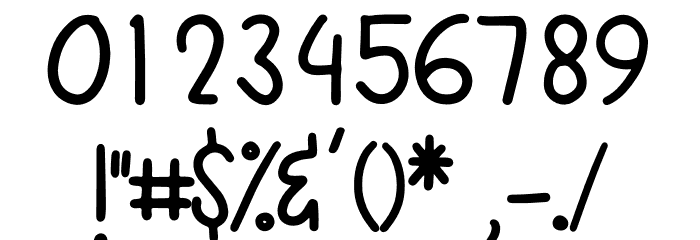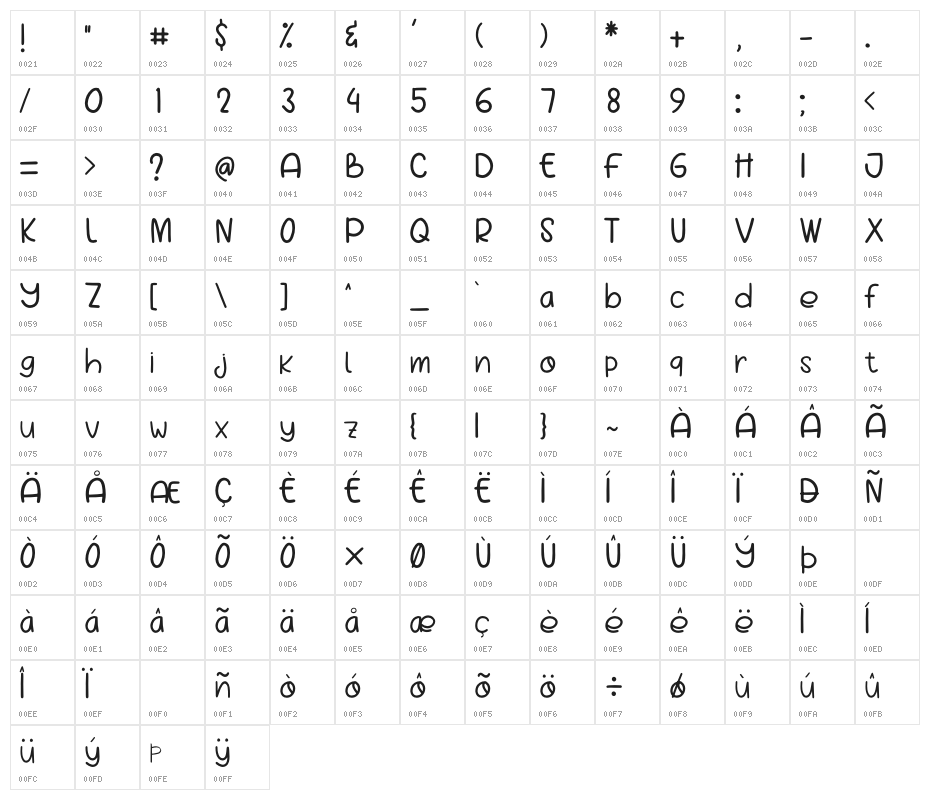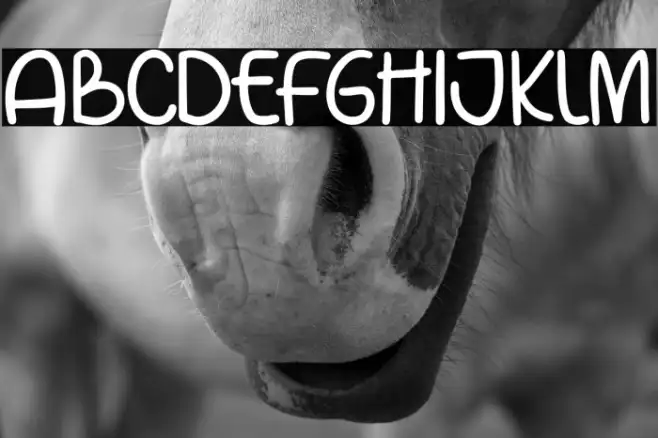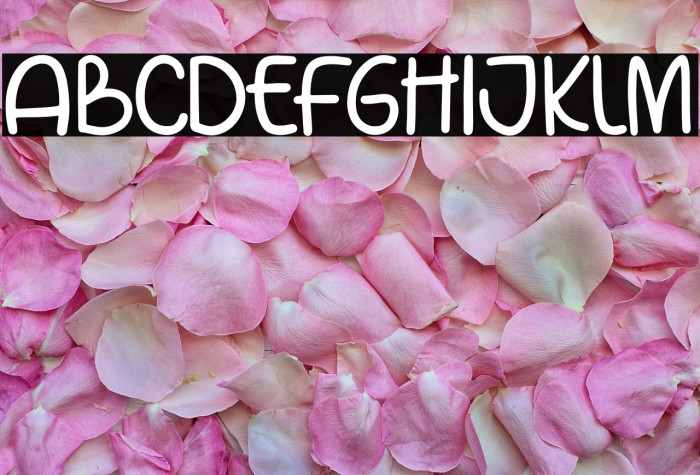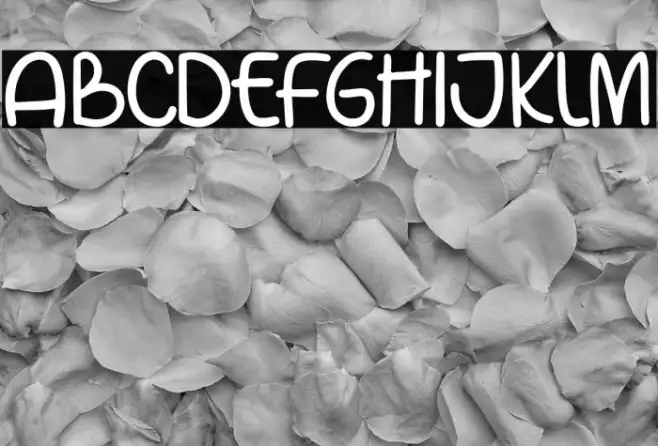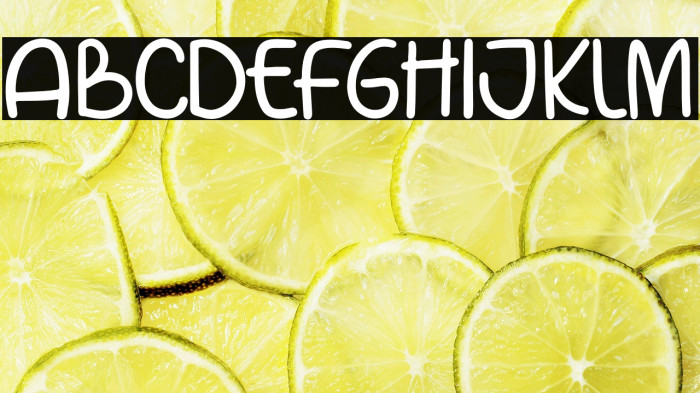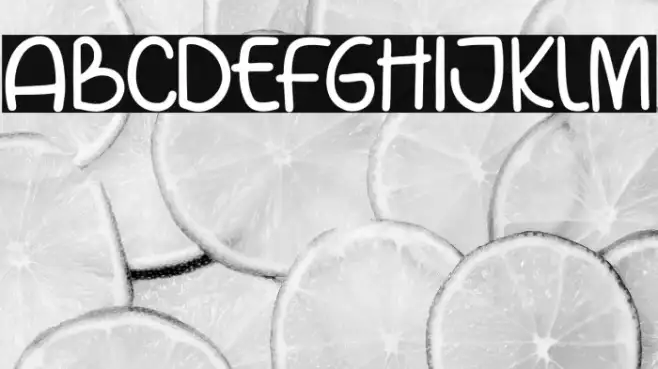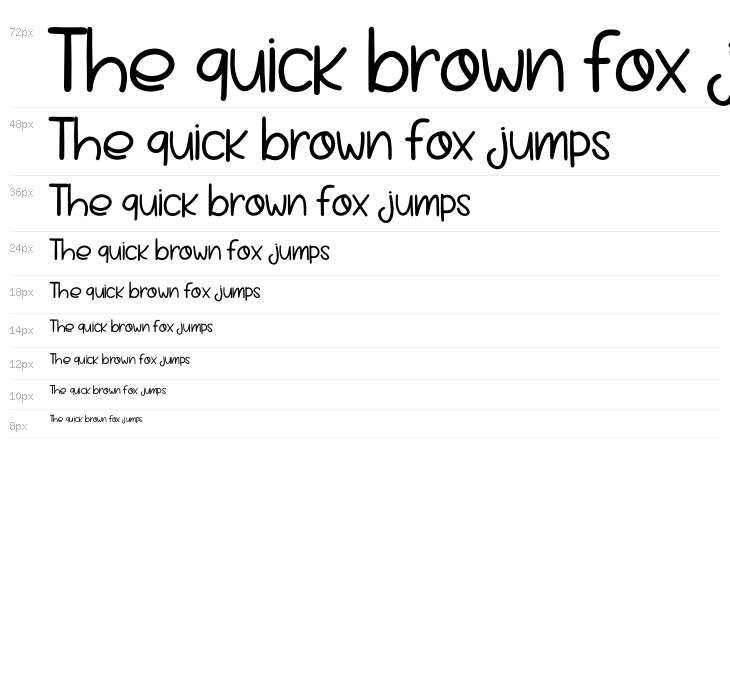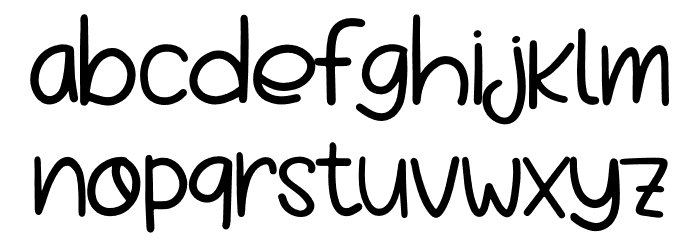
Marble Cookies Font
Marble Cookies Description
This playful and rounded font exudes a friendly and approachable vibe, characterized by its smooth curves and uniform stroke width. The letters are slightly elongated, giving them a whimsical appearance, while maintaining readability. The font's casual style is enhanced by its consistent character height and width, making it ideal for informal and fun designs. The numerals and special characters complement the overall aesthetic, ensuring versatility across different applications. Its simplicity and charm make it suitable for a variety of creative projects.
| Proposed Projects | Ideal for children's books, playful branding, greeting cards, and casual invitations. |